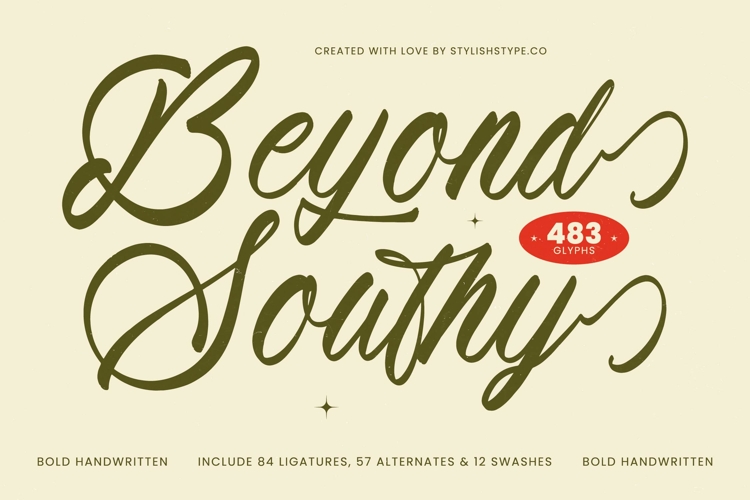
Beyond Southy - Bold Handwritten Font
Discover boundless creative possibilities with Font Beyond Southy - Bold Handwritten Font Script’s expansive character set. Featuring an impressive 84 ligatures, 57 alternates, and 12 intricate swashes, this font offers exceptional customization and typographic versatility. These rich OpenType features empower designers to craft truly unique and expressive headlines, logos, and intricate textual compositions that resonate with an bespoke flair.
Expand your brand's reach effortlessly with this globally-minded script. With its extensive multilingual support, Font Beyond Southy - Bold Handwritten Font Script adapts seamlessly across global markets, making it incredibly versatile for international projects. This ensures your message maintains its impact and professionalism regardless of language, fostering genuine connection with diverse audiences worldwide.
Perfect for projects demanding both character and class, Font Beyond Southy - Bold Handwritten Font Script is the ultimate choice for luxury branding, high-end packaging, elegant event invitations, and impactful editorial design. Its inherent warmth and sophisticated handwritten aesthetic make it ideal for fashion labels, artisanal product branding, or compelling social media graphics, ensuring your design conveys authenticity and premium quality.